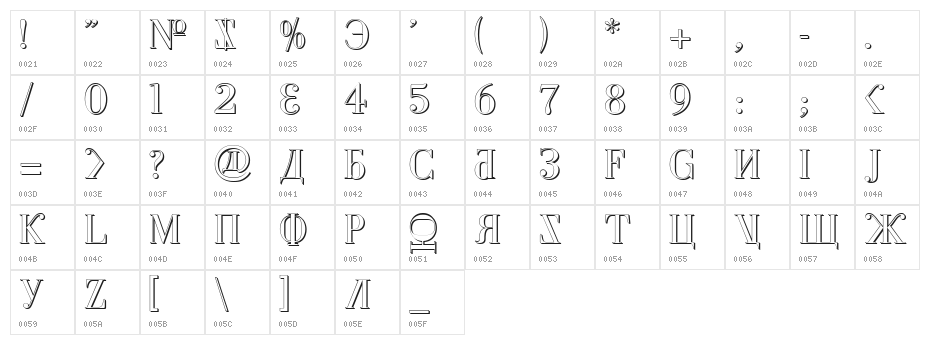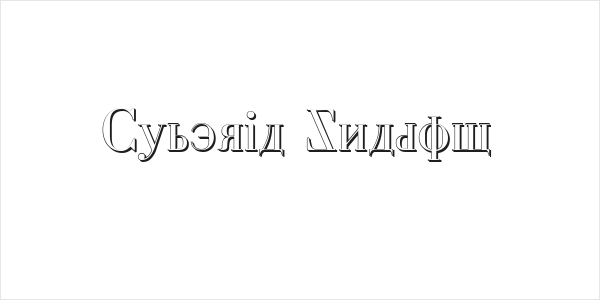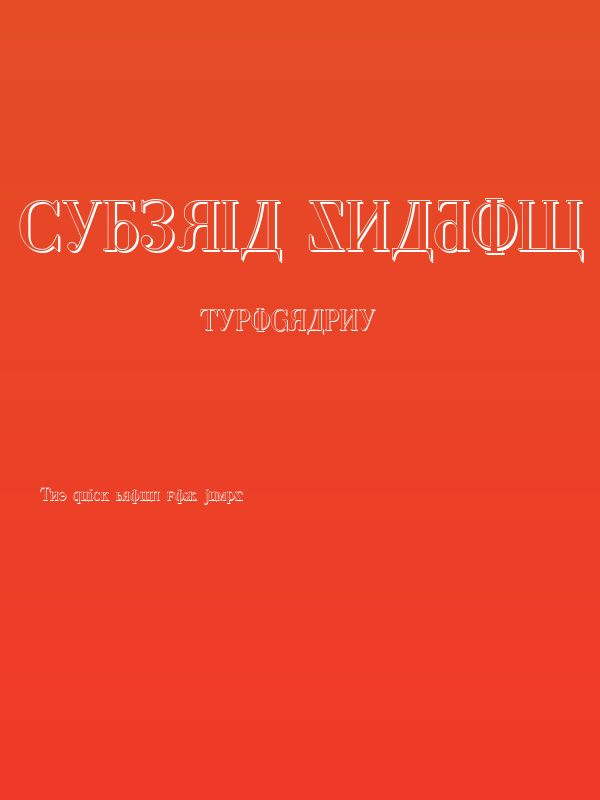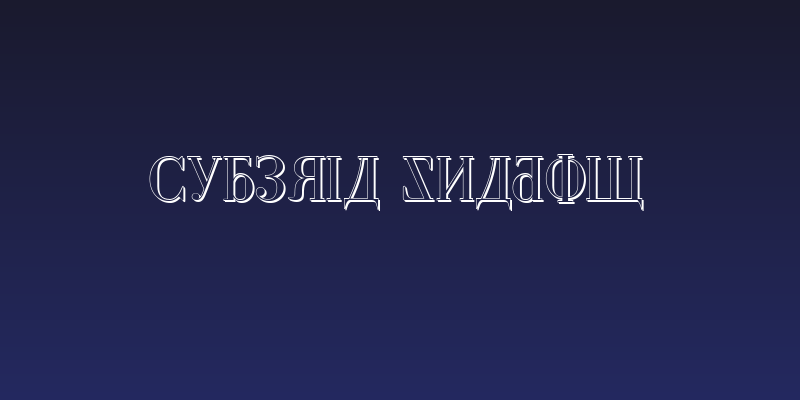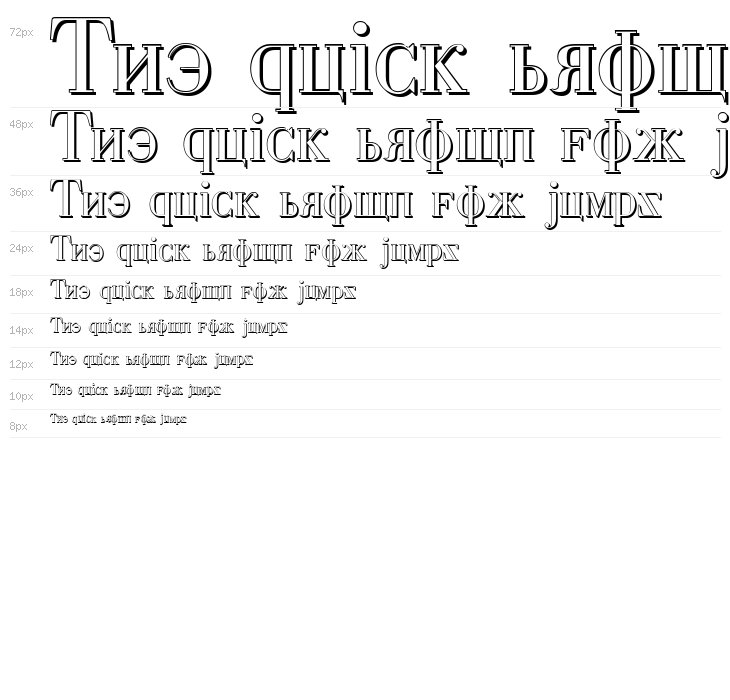
Cyberia Shadow Font
Cyberia Shadow Description
This font features a bold and striking design with a shadow effect that gives it a three-dimensional appearance. The characters are uppercase and lowercase Cyrillic and Latin alphabets, along with numbers and a variety of special characters. Each letter is outlined with a shadow that enhances its visibility and adds depth. The font combines traditional serif elements with a modern twist, making it suitable for both classic and contemporary designs. The serifs are pronounced, and the overall structure is balanced, providing a sense of stability and elegance. The shadow effect is consistent across all characters, contributing to a cohesive look.
| Proposed Projects | Ideal for headlines, posters, branding, and any project requiring a bold, impactful typeface. |